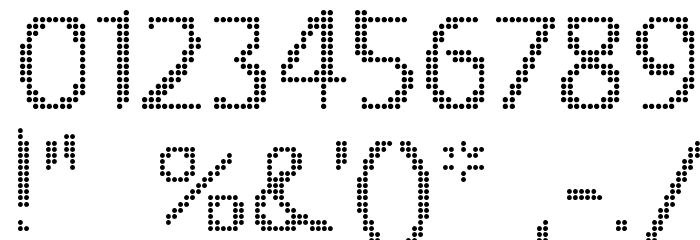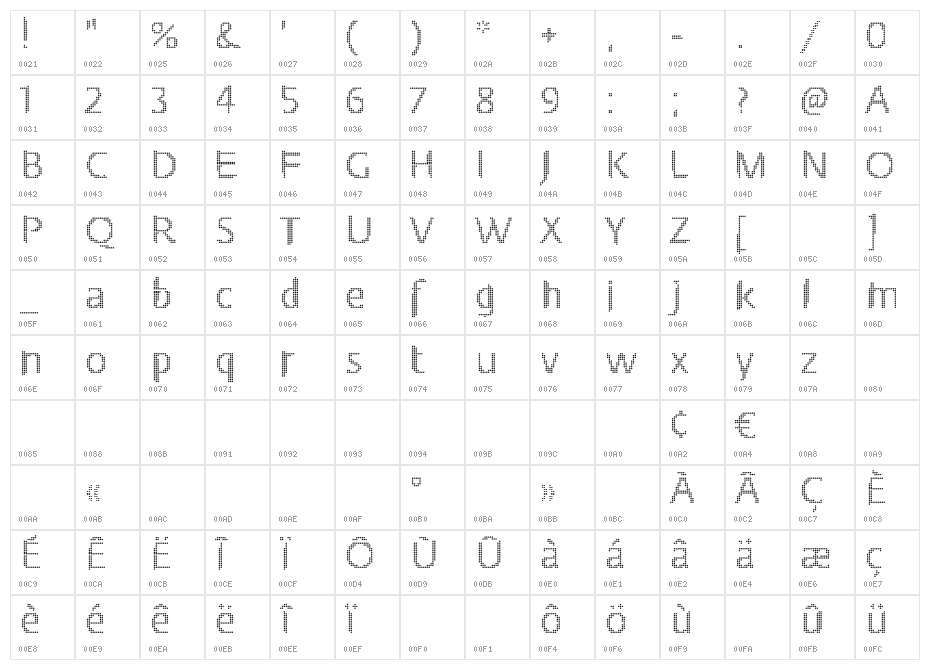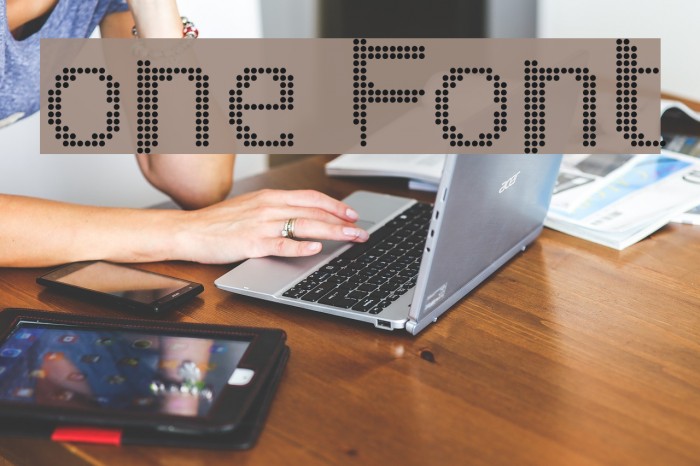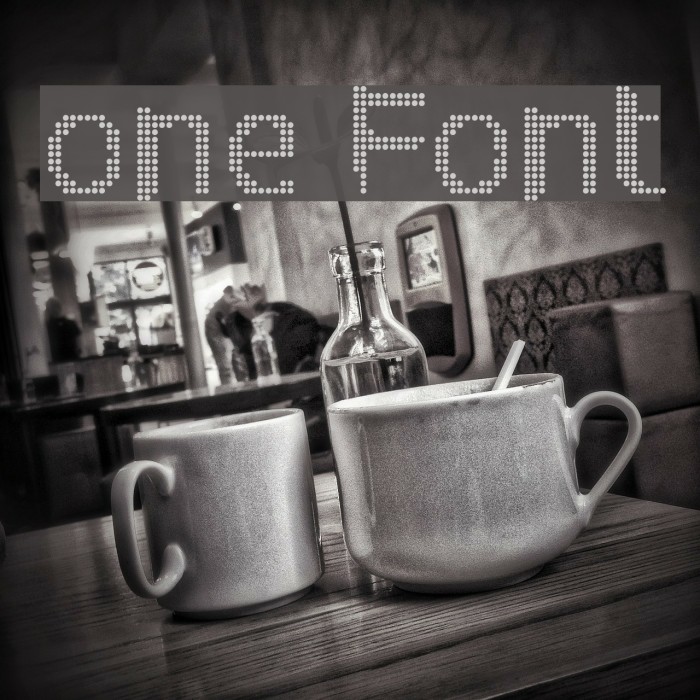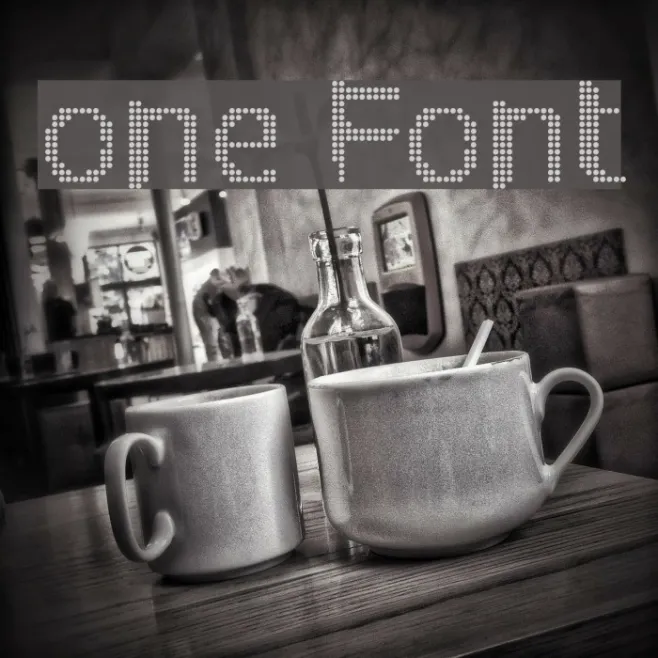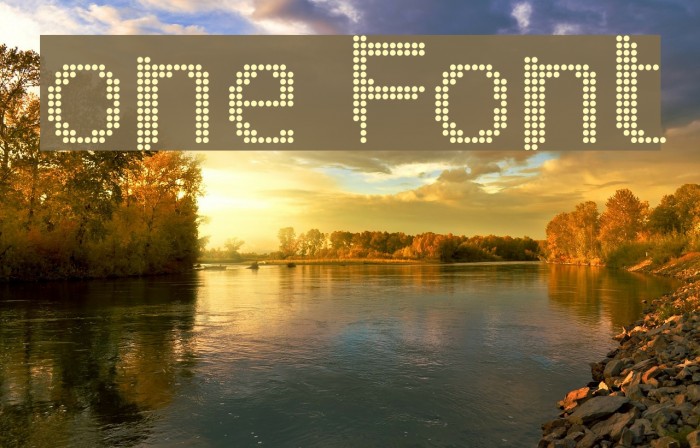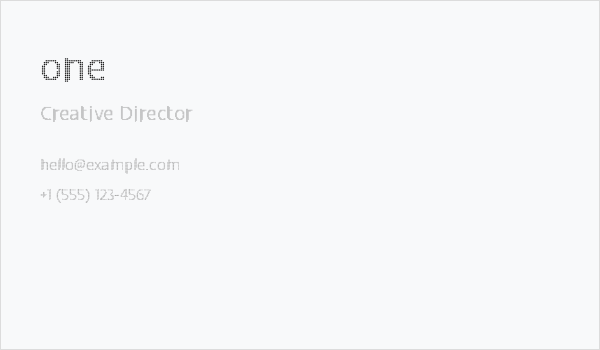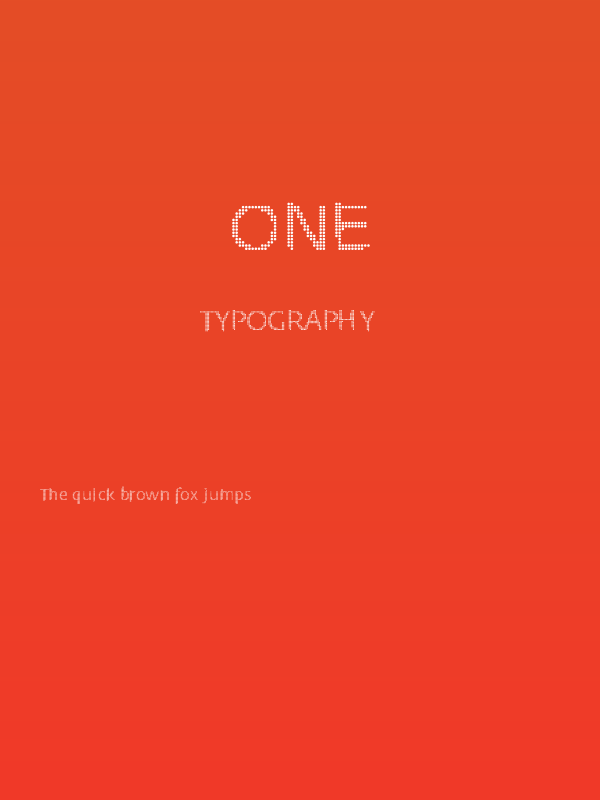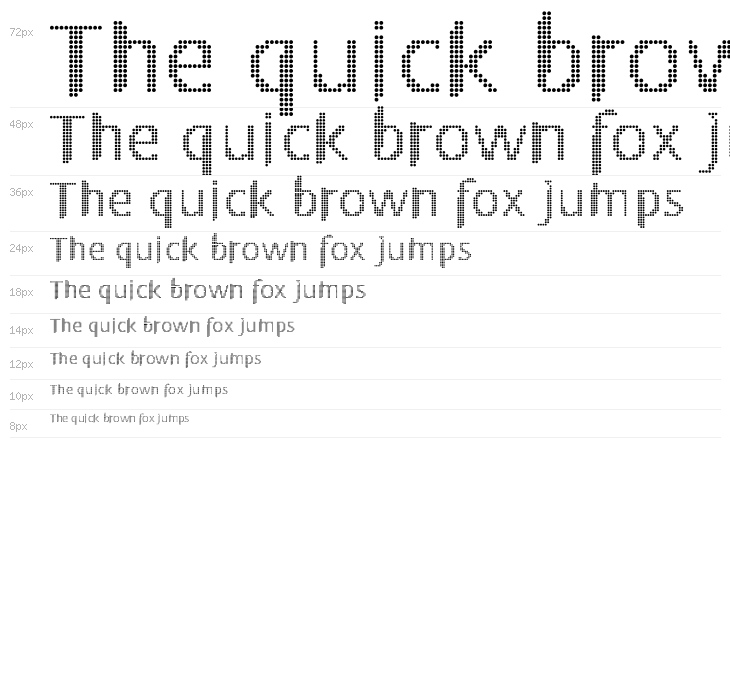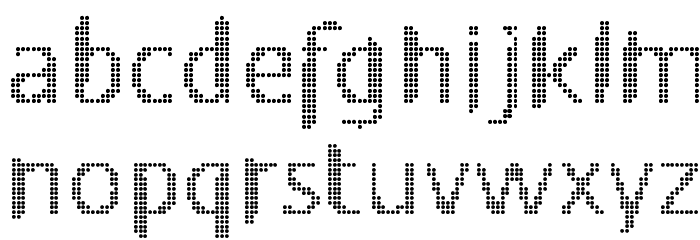
one Description
This font is a unique and creative design composed entirely of small dots arranged to form each character. The dotted style gives it a digital and modern feel, reminiscent of LED displays or dot matrix printers. Each letter and number is clearly defined, maintaining legibility despite the unconventional style. The uniformity of the dots provides a consistent texture across all characters, making it visually appealing for projects that require a tech-savvy or futuristic aesthetic. The font includes a full set of uppercase and lowercase letters, numbers, and a selection of special characters, ensuring versatility in its application.
| Proposed Projects | Ideal for digital art, tech branding, futuristic posters, and electronic-themed events. |